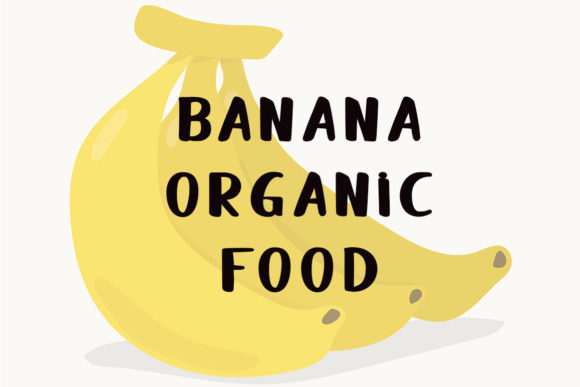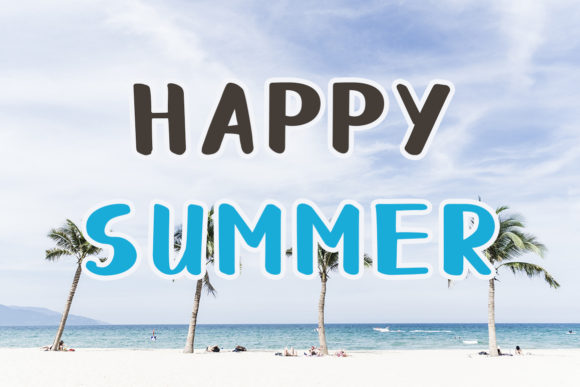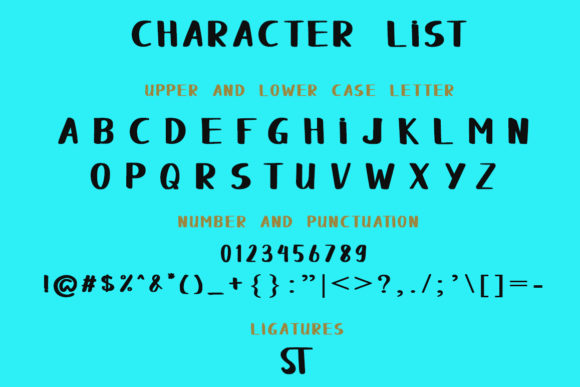
Austin Font: Where Creativity Meets Vibrancy
Have you ever been brainstorming ideas for a new project, and suddenly, a burst of inspiration hits you? The colors, the shapes, the emotions – everything comes together in a beautiful symphony. That’s exactly what happens when you add the Austin Font to your creative mix. This bold and colorful display font has a friendly feel that makes it incredibly versatile, fitting a wide range of contexts.
Austin Font is more than just a font – it’s a way to bring your ideas to life. With its playful and energetic vibe, it’s perfect for designers looking to add a touch of whimsy to their work. Whether you’re designing a logo, a poster, or a social media campaign, Austin Font is sure to make your creations stand out. Its value lies in its ability to evoke emotions and connect with your audience on a deeper level.
- Unique Characteristics: Austin Font features a distinctive, modern design with a mix of geometric and organic elements, giving it a unique and stylish look.
- Font Weight: Austin Font comes in multiple weights, from Light to Extra Bold, allowing designers to achieve the perfect level of emphasis and contrast.
Austin Font Review
I recently had the chance to work with the Austin Font, and I wanted to share my honest thoughts on this typeface.
- Unique Character: The Austin Font has a distinct character that sets it apart from other sans-serif fonts. Its rounded edges and soft curves make it perfect for creating a friendly and approachable atmosphere.
- Legibility: This font is highly legible, even at smaller sizes, making it ideal for body text or display purposes.
- Customization: The Austin Font offers a range of weights and styles, allowing designers to customize their designs to suit their needs.
- Readability at Small Sizes: While the Austin Font is highly legible, it can become a bit fuzzy at extremely small sizes, which may not be ideal for applications where text is displayed in very small formats.
- Limited International Support: The Austin Font may not support all languages and character sets, which could limit its use in multilingual designs.
Overall, the Austin Font is a solid choice for designers looking for a friendly and approachable typeface. While it may have some limitations, its unique character and high legibility make it a great option for a wide range of design applications.
Tips for Getting the Most Out of Austin Font
Austin Font is a modern sans-serif font that works well in a variety of designs. To get the most out of it, use it in combination with bold colors and clean design elements. Avoid using it in overly complex designs, as it can get lost in the noise.
Austin Font is commonly used in modern designs, such as:
- Social media posts
- Flyers and brochures
Alternatives to Austin Font for Designers
Lato Font is a modern sans-serif typeface that is highly legible and versatile. It is suitable for various design applications, including headlines, body text, and UI elements. Lato Font is a great alternative to Austin Font when you need a clean and sophisticated look. While Austin Font has a more distressed feel, Lato Font is sleek and minimalist.
Open Sans Font is a popular sans-serif typeface that is highly readable and suitable for a wide range of design applications. It is a great choice for body text, headings, and UI elements. Open Sans Font is a good alternative to Austin Font when you need a clean and neutral look. While Austin Font has a more rugged feel, Open Sans Font is friendly and approachable.